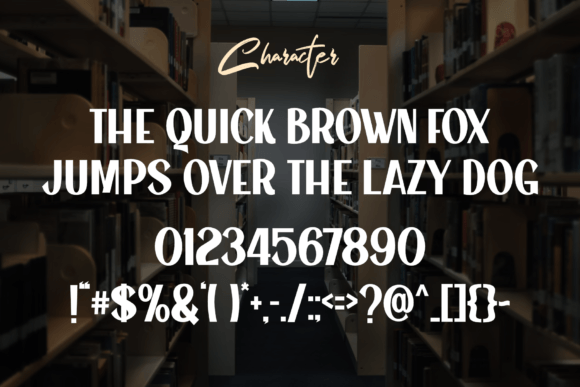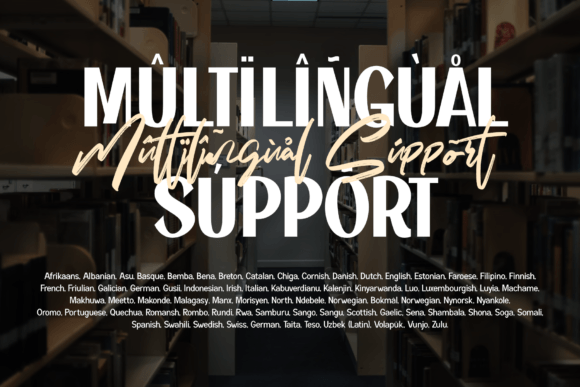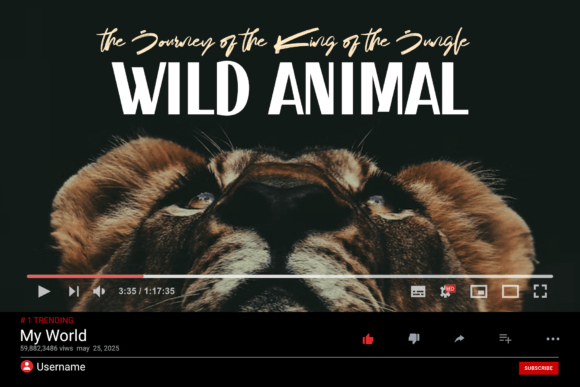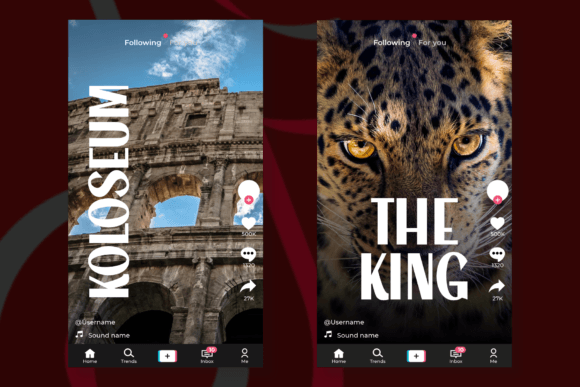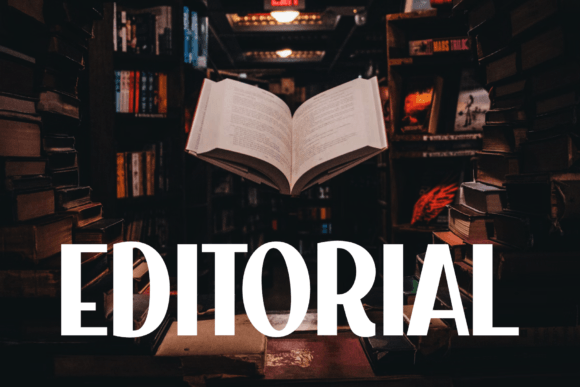
Introduction to Quickcase Font
As a designer, you’ve probably found yourself stuck in the middle of a creative project, struggling to find the perfect font to give your work that extra oomph. The moment of truth arrives when you’re deciding on a title or main caption, and the right font can make all the difference. That’s where the Quickcase Font comes in – a sleek and modern sans serif font designed to elevate your designs to the next level.
With its high contrast, slightly bold typography, the Quickcase Font is perfect for grabbing attention and conveying a sense of professionalism. Plus, its versatility makes it easy to read in any text size, ensuring your message gets across with clarity. Whether you’re working on a design project or just looking for a high-quality font to add to your collection, the Quickcase Font is a valuable resource that’s definitely worth exploring.
Key Features of Quickcase Font
- High-quality design resource for creative projects: Quickcase Font is a unique and stylish font perfect for any design project.
- Transparent background: Quickcase Font has a transparent background, allowing designers to easily place the text over any image or background.
- High-resolution design: Quickcase Font is designed at 300 DPI, ensuring that it looks great in print and digital applications.
- Perfect for creative projects: Quickcase Font is ideal for use in logos, branding, packaging, and other creative projects where a unique and stylish font is required.
- Easy to customize: Quickcase Font can be easily customized using font editing software, allowing designers to create unique and personalized designs.
Honest Review: Quickcase Font
I recently stumbled upon the Quickcase Font and I must say it’s been a game-changer for my design projects. ✨ As a designer, I’m always on the lookout for high-quality fonts that can elevate my creative work. The Quickcase Font has definitely delivered.
One of the standout features of this font is its transparent background, making it super easy to work with. It’s also available for free download, which is a major bonus. As a design resource, it’s a great addition to any designer’s toolkit.
Here are some of the things that work well with the Quickcase Font:
- High-quality design that looks great on any project
- Transparent background for easy editing and composition
- The font can be a bit overwhelming if used in large quantities, so be mindful of your design composition
Overall, I’m really impressed with the Quickcase Font and would definitely recommend it to fellow designers. It’s a great design resource that can add a professional touch to any creative project. ⚠️ Just be aware of the limitations and use it wisely.
Quickcase Font is a high-quality design resource that can add a professional touch to your creative project. It’s free to download and has a transparent background, making it easy to use in any design.
The Quickcase Font is ideal for use in logos, headings, and titles. It’s also great for creating a consistent design style across multiple projects.
To get the most out of the Quickcase Font, experiment with different font sizes, colors, and alignments to find the perfect combination for your design. You can also pair the font with other design elements, such as graphics and images, to create a visually appealing design.